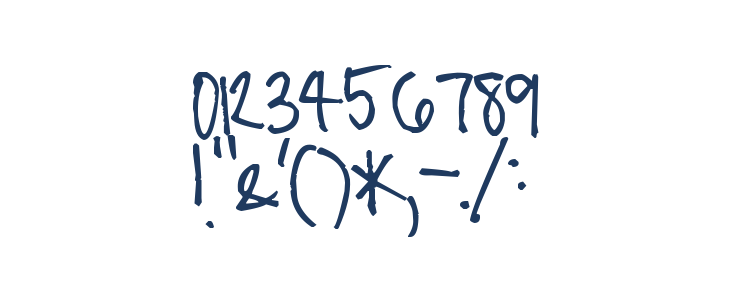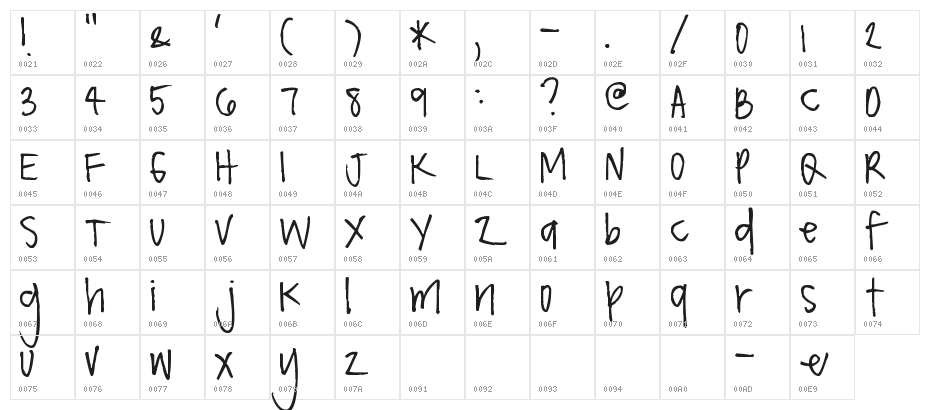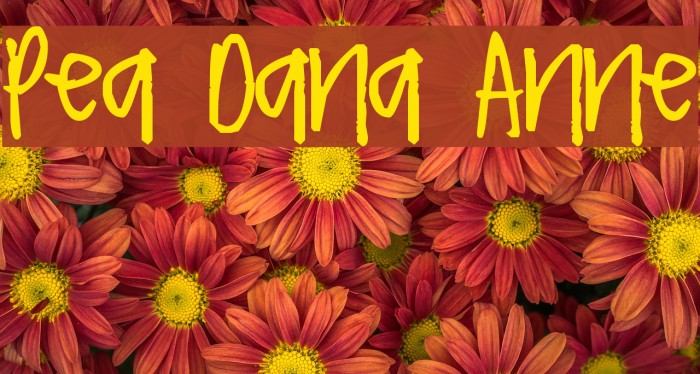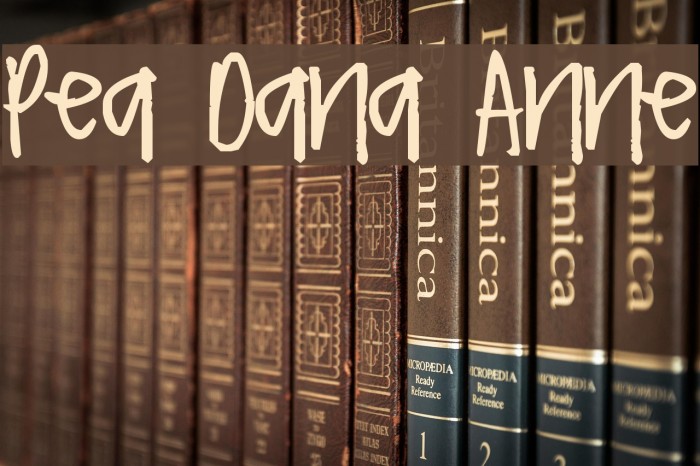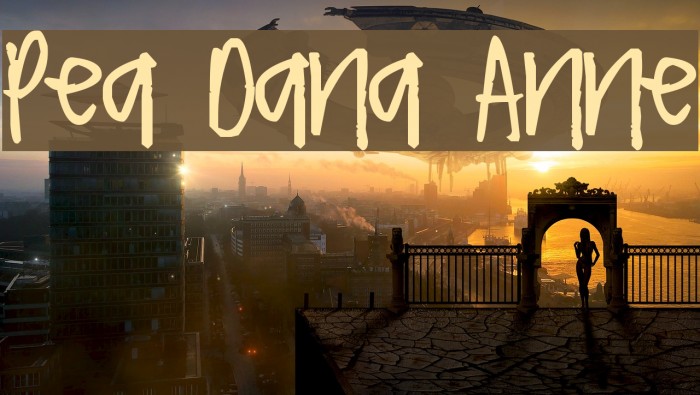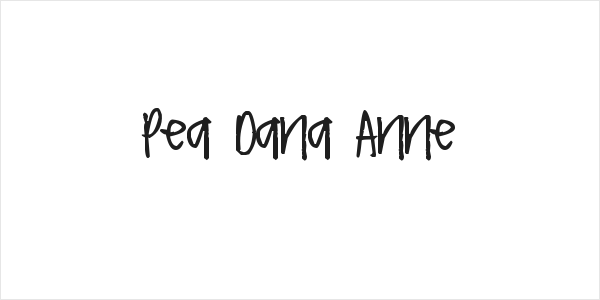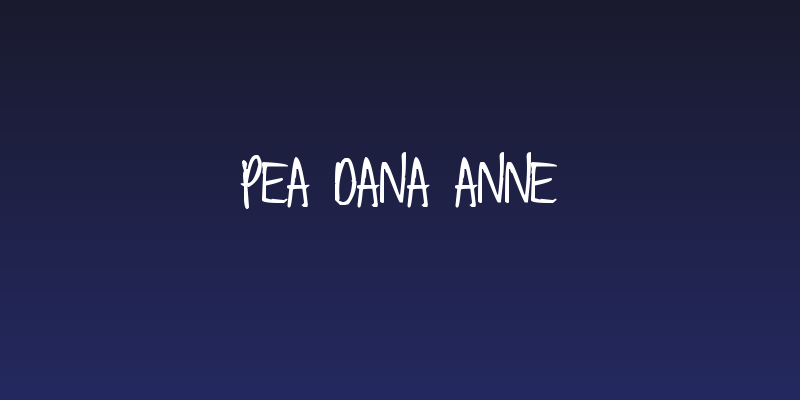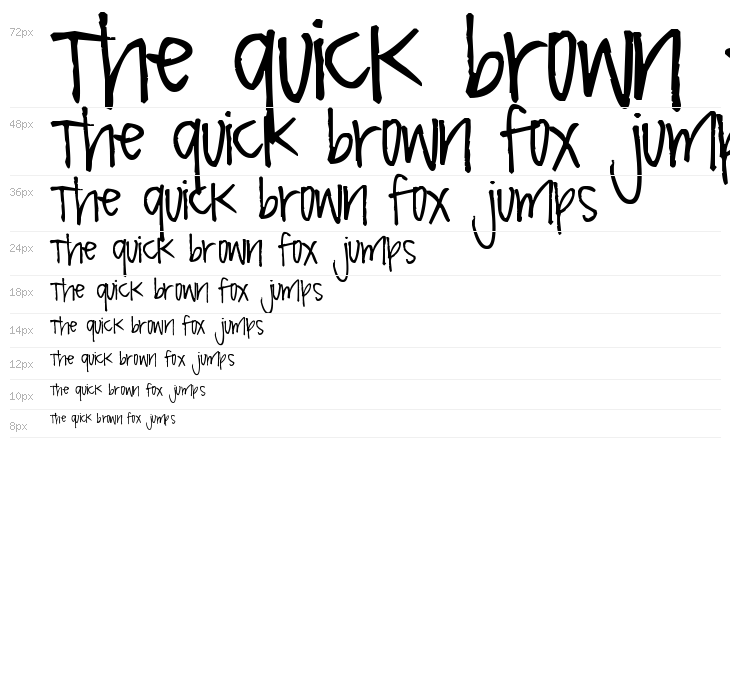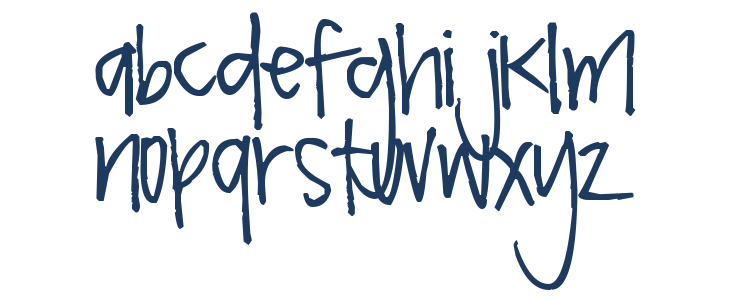
Pea Dana Anne Font
Pea Dana Anne Description
This font features a playful and casual handwritten style, characterized by its uneven strokes and organic flow. The letters have a natural, slightly messy appearance, which adds a personal touch to any text. The uppercase and lowercase letters maintain a consistent style, with some letters having unique, quirky shapes that enhance the font's charm. The numbers and special characters are equally expressive, fitting seamlessly with the overall aesthetic. This font is perfect for projects that require a friendly and approachable feel.
| Use Case | Logos, Informal communications, Creative projects |
| Proposed Projects | Ideal for personal notes, greeting cards, informal invitations, and creative branding projects. |